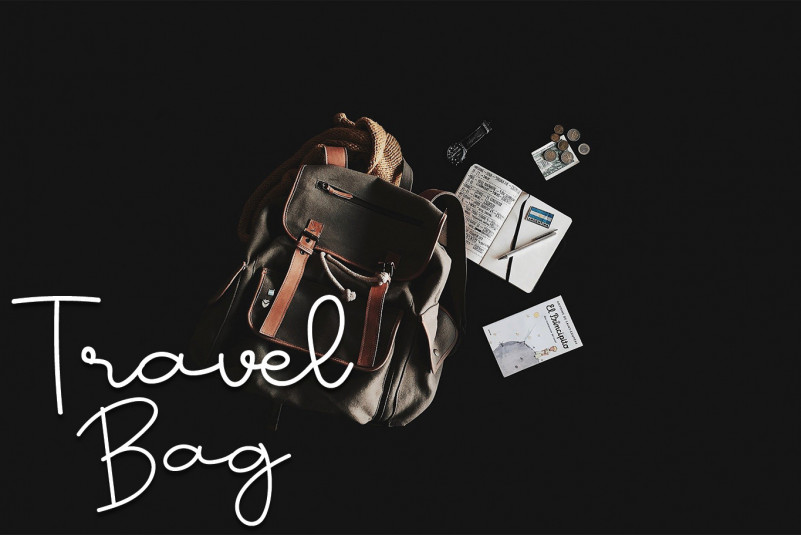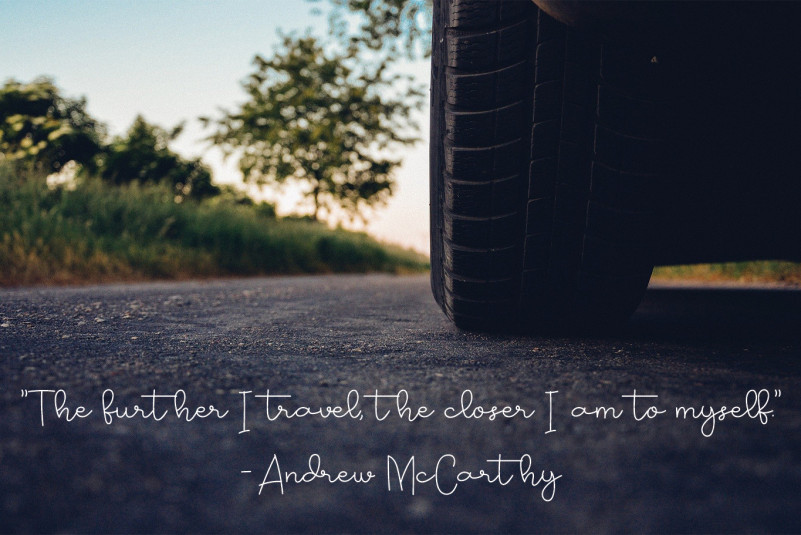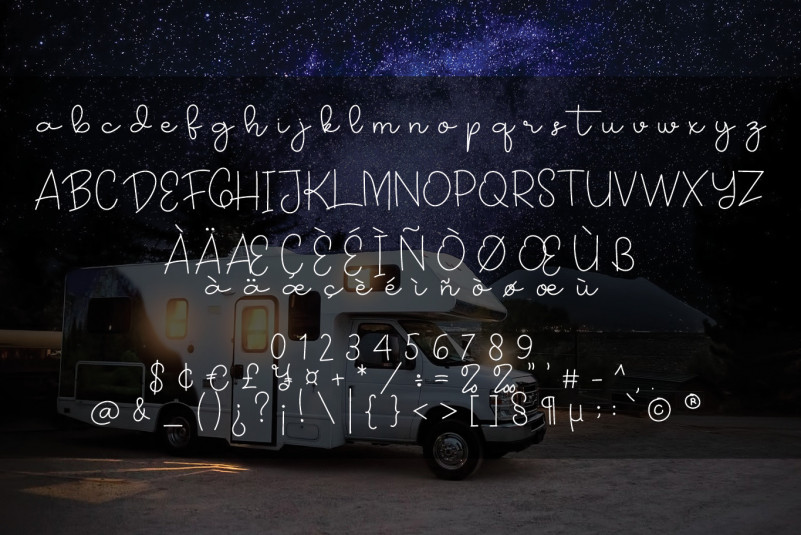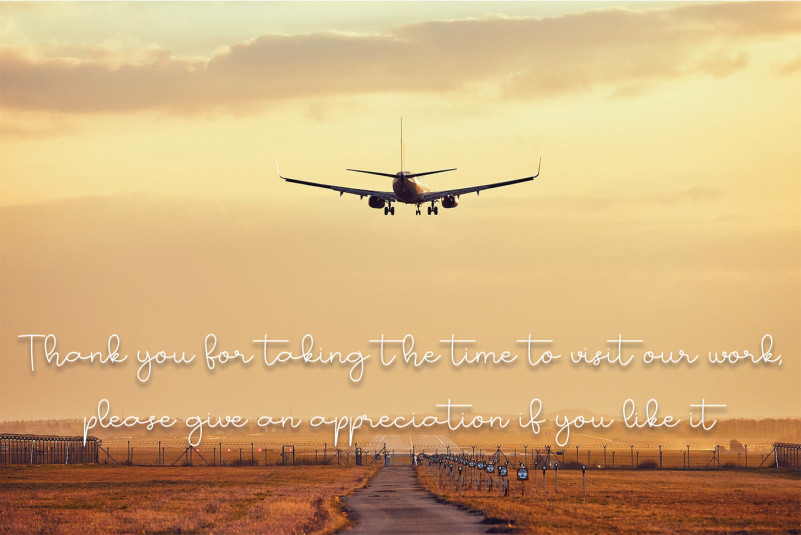
Journey Font
Journey Handwritten Font
Journey Font is a beautiful light handwritten font with a unique feel and a stunning impact. It will add a luxurious spark to any lovely project that you wish to create!